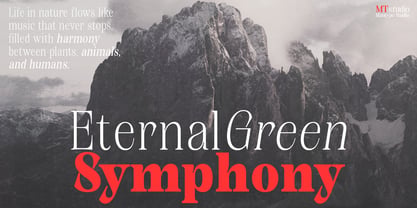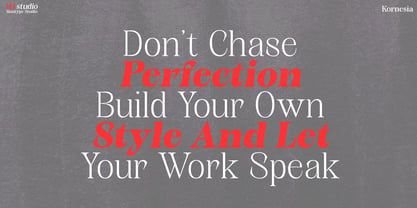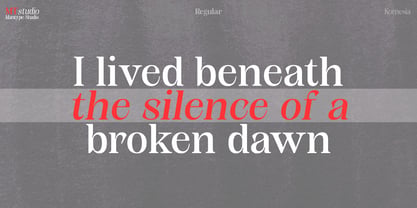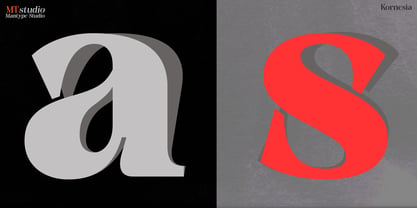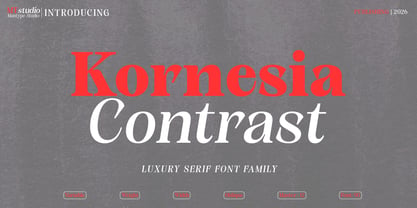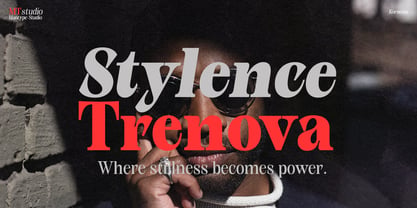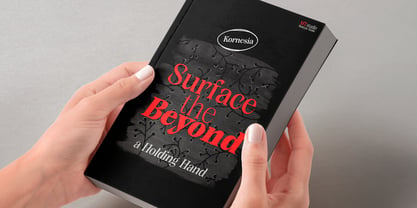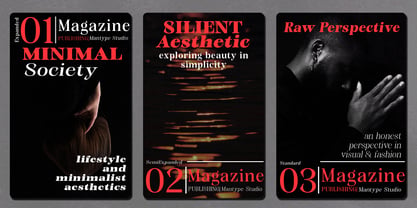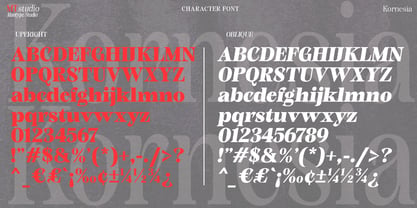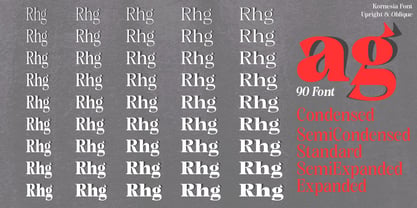
Kornesia Contrast
The Kornesia Contrast Font Family was designed by Sulai Man and published by Mantype Studio. Kornesia Contrast contains 91 styles and family package options. More about this family
Kornesia Contrast is a luxury serif font with high contrast between thick and thin strokes, delivering an elegant, modern, and premium feel. Designed with balanced proportions and refined details, it stands out in headlines while maintaining good readability. As a variable font with weight, width, and oblique options, Kornesia offers high flexibility for branding, editorial, logos, and premium design needs. Its blend of classic character and contemporary touch makes it an ideal choice for a sophisticated and timeless look.